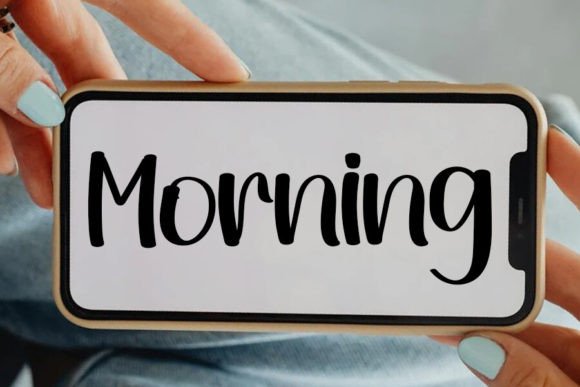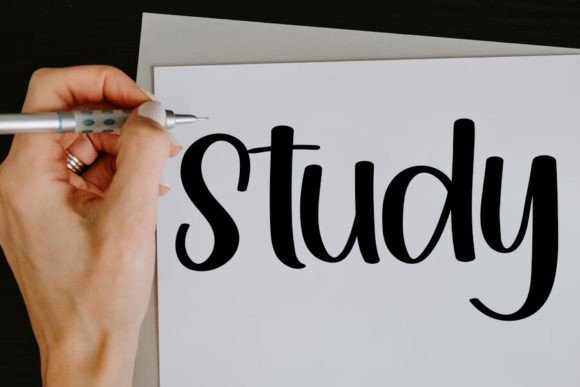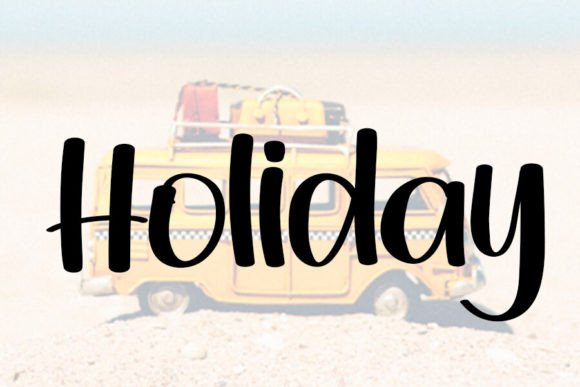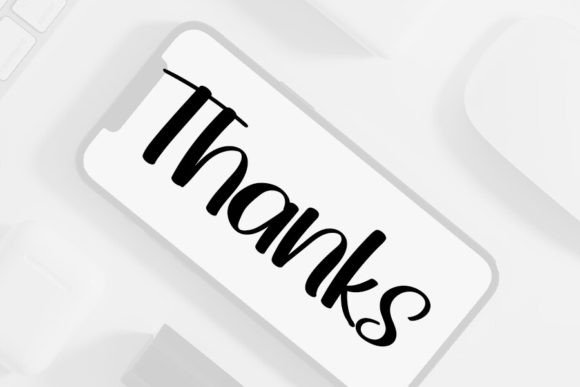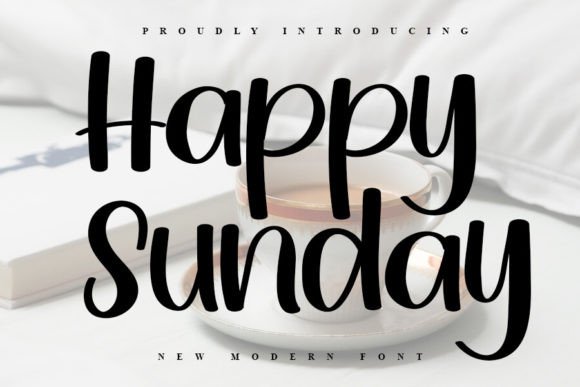
Happy Sunday Font: Elevate Your Designs with Fresh and Beautiful Typography
Happy Sunday! Are you tired of using the same old fonts for your designs? Look no further! We’re excited to introduce you to the Happy Sunday Font, a fresh and beautiful typeface that’s perfect for all your design needs. Whether you’re creating YouTube banners, cover logos, wedding invitations, ID cards, flyers, or crafts, this font is sure to make your work stand out.
What Makes Happy Sunday Font Special?
The Happy Sunday Font is a unique and simple typeface that’s designed to help your business grow. Its clean and elegant lines make it perfect for a wide range of design applications. Here are some reasons why you should consider using this font:
- Fresh and Beautiful: The Happy Sunday Font is a modern and stylish typeface that’s sure to catch the eye. Its unique design makes it perfect for creating stunning visual content.
- Versatile: This font is perfect for a wide range of design applications, from YouTube banners and cover logos to wedding invitations and ID cards.
- Simple and Unique: The Happy Sunday Font is both simple and unique, making it easy to read and understand, while also standing out from the crowd.
Use Cases for Happy Sunday Font
The Happy Sunday Font is a versatile typeface that can be used for a wide range of design applications. Here are some use cases to get you started:
- YouTube Banners: Create stunning YouTube banners that showcase your brand’s personality and style.
- Cover Logos: Design eye-catching cover logos that make your social media profiles stand out.
- Wedding Invitations: Create beautiful and elegant wedding invitations that set the tone for the big day.
- ID Cards: Design professional and stylish ID cards that make a great impression.
- Flyers: Create eye-catching flyers that promote your business or event.
- Crafts: Use the Happy Sunday Font to add a personal touch to your crafts, such as handmade cards and gift tags.
Here are some tips for designers and crafters who want to get the most out of the Happy Sunday Font:
- Experiment with Colors: Try pairing the Happy Sunday Font with different colors to create a unique and eye-catching design.
- Play with Sizes: Experiment with different font sizes to create visual hierarchy and emphasis in your design.
- Add Texture: Add texture to your design by combining the Happy Sunday Font with images, patterns, or illustrations.
- Keep it Simple: Don’t be afraid to keep your design simple and clean, letting the Happy Sunday Font take center stage.